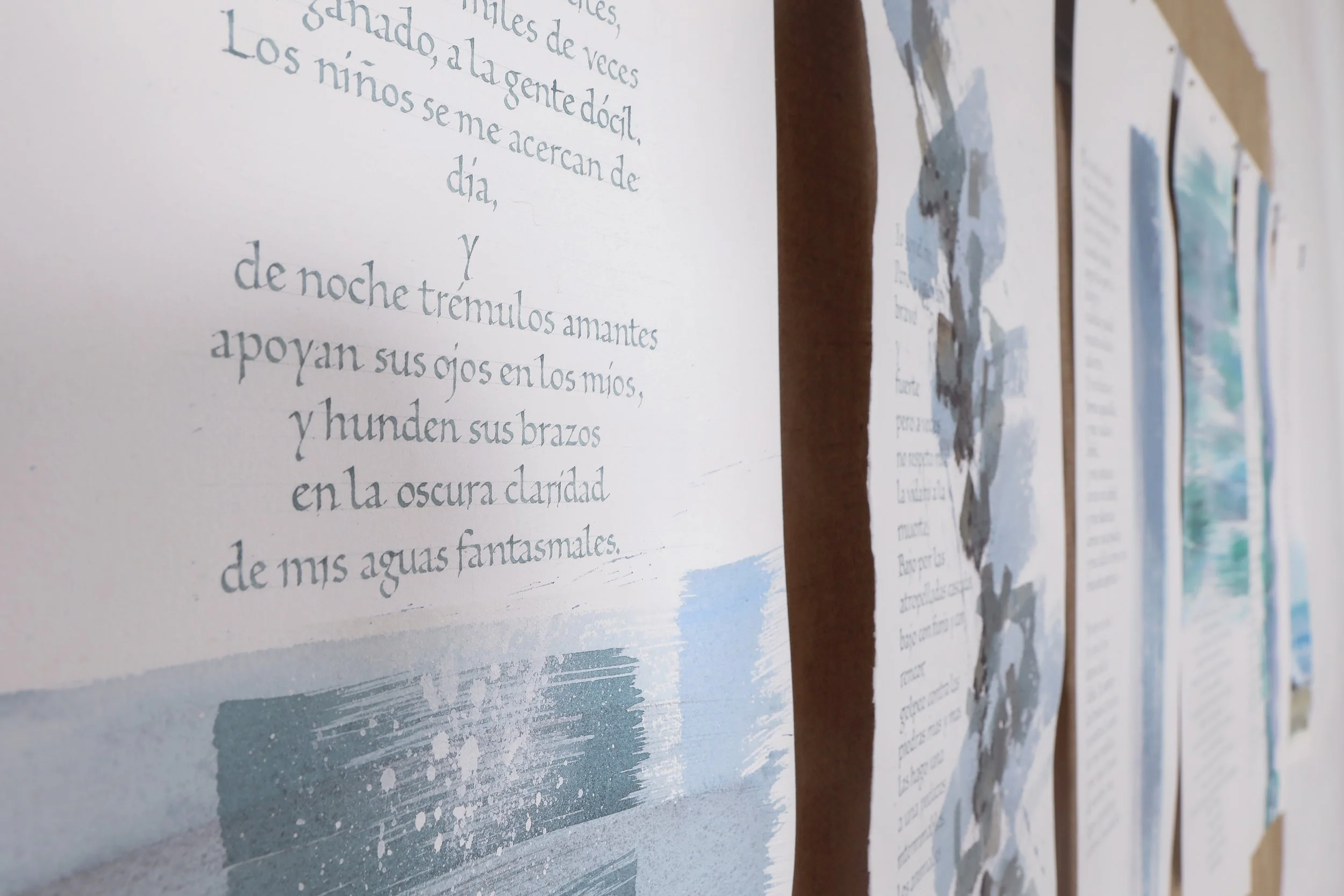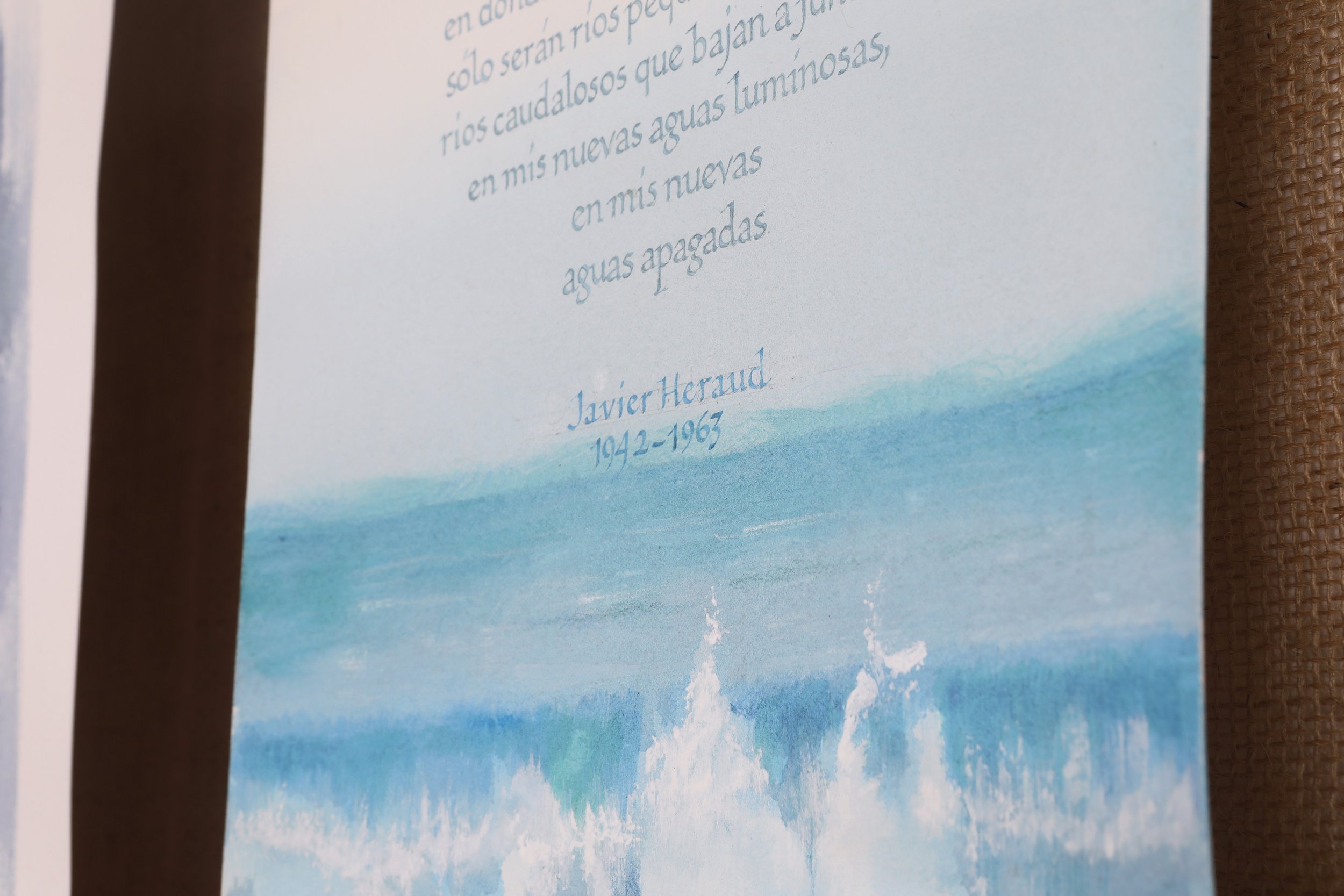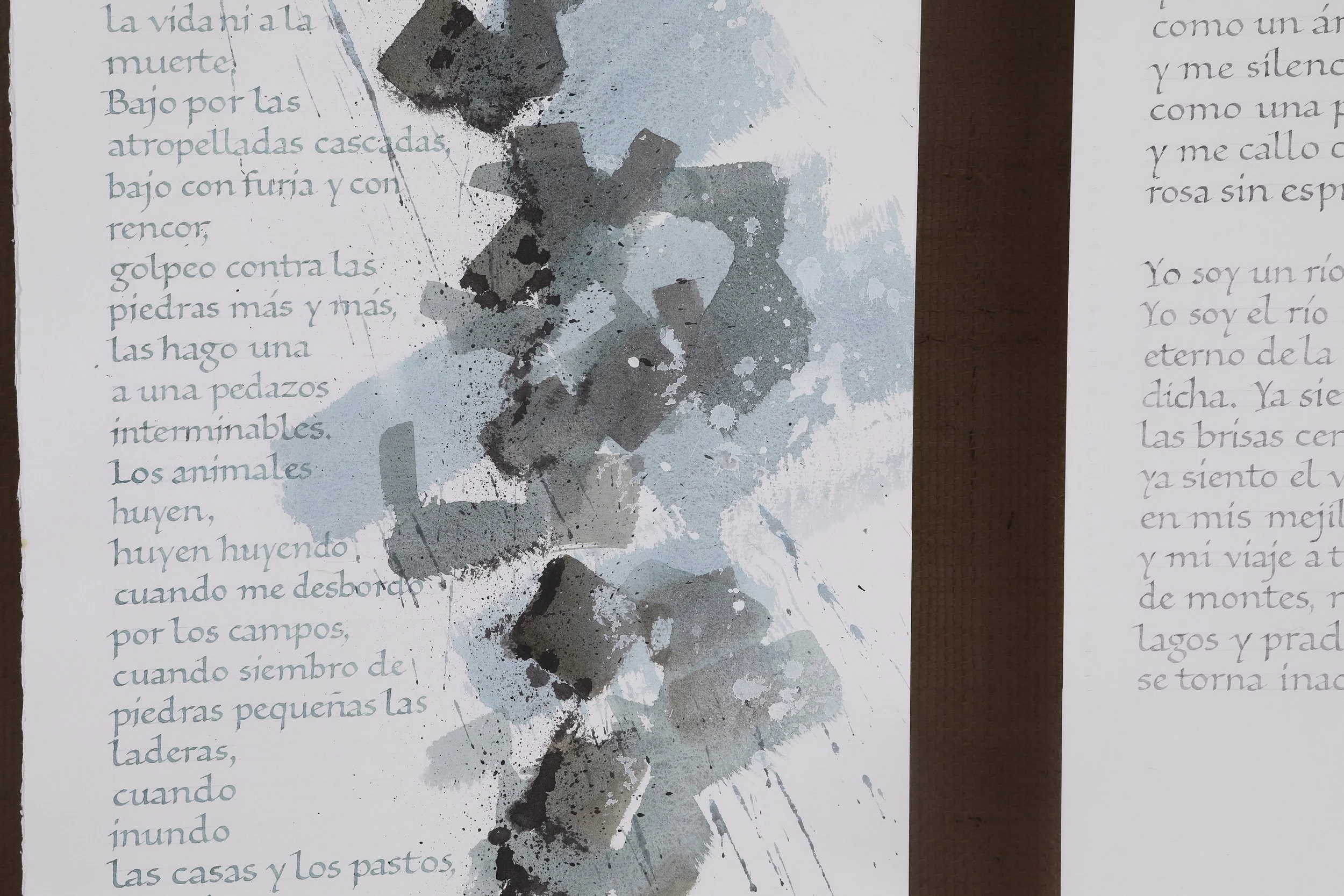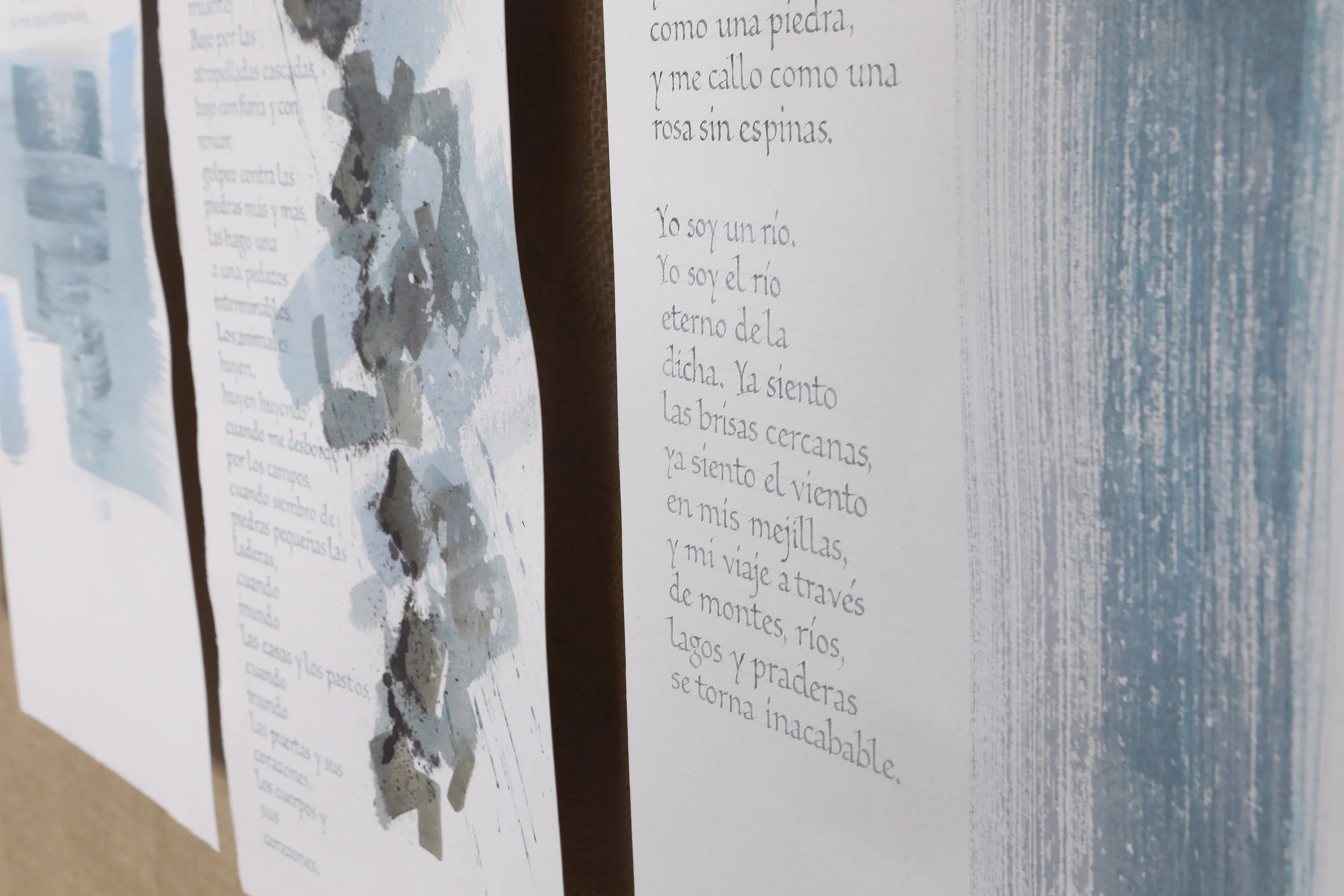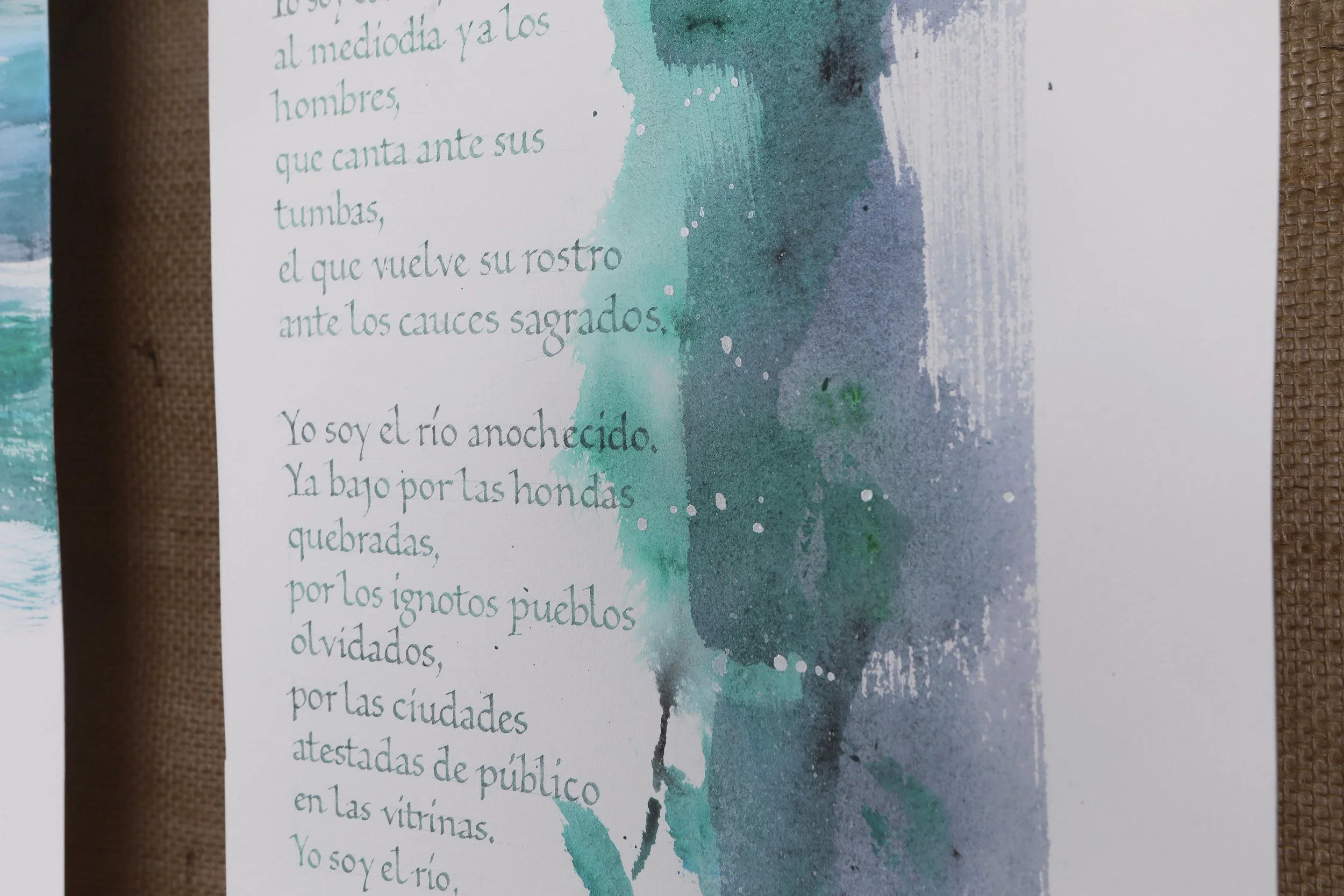
JUAN LUIS GARGUREVICH | The river (Spanish)
ARTIST | Juan Luis Gargurevich
BASED IN | Lima, Peru
TITLE | The river
SIZE | 300 × 790 mm each panel
MEDIUM | Acrylic
Seven panels written in Foundational calligraphy and illustrated on Hahnemühle paper. The text is taken from the Spanish poem El Río by Javier Heraud (1934–1963), reflecting the lyrical flow and contemplative imagery of the original work.